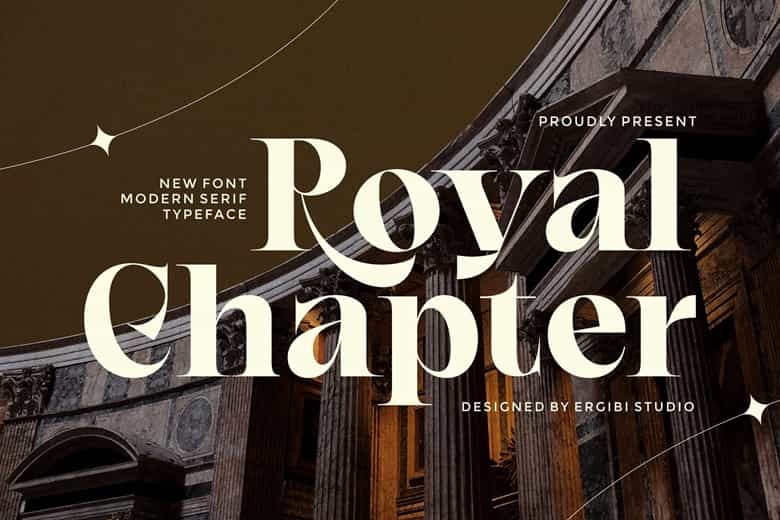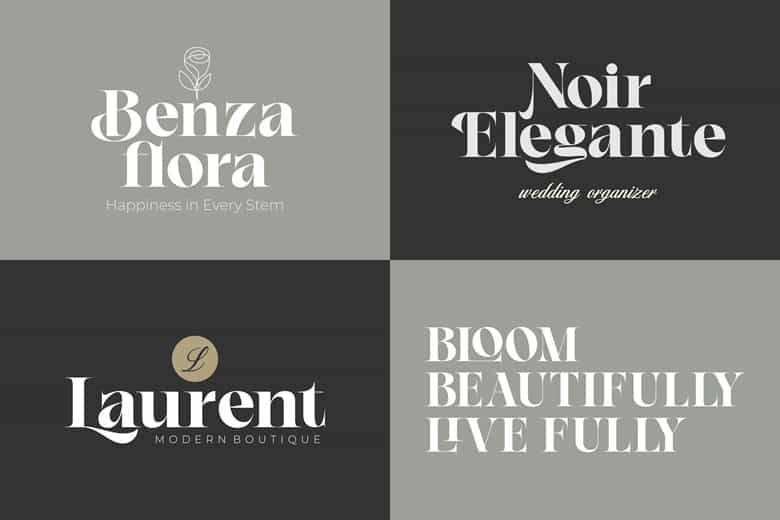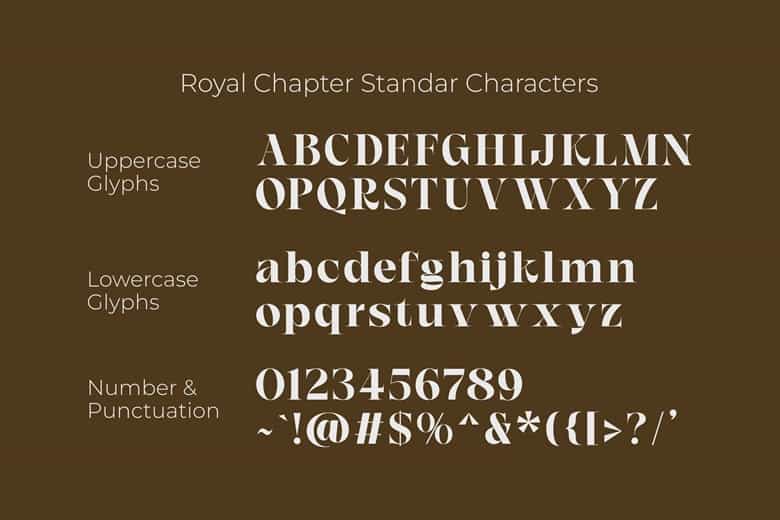
Royal Chapter reflects stylish serif font, everlasting elegance and neat sophistication. Owing to its pointed serifs, good balance and freshness, this typeface is well-suited for expensive advertising, stylish magazine designs, trendy packaging’s and elegant invitations. Royal Chapter creates a classy effect by combining the characteristics of old English writing with modern designs.